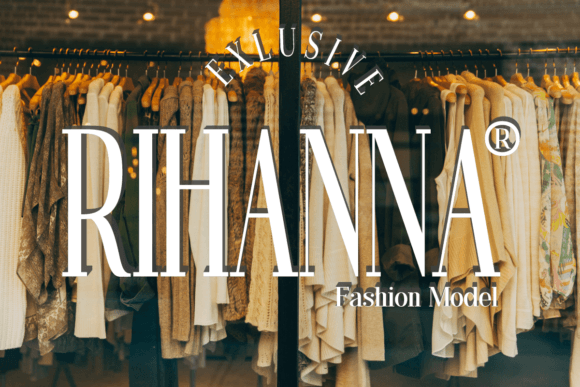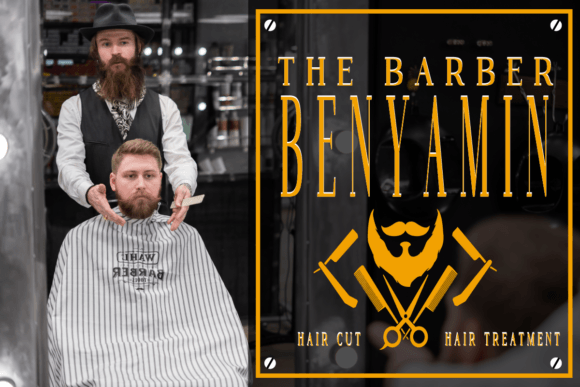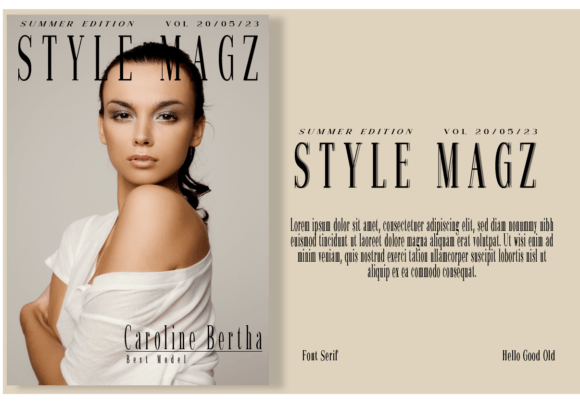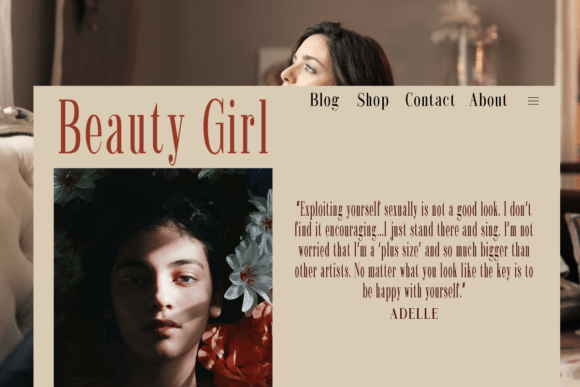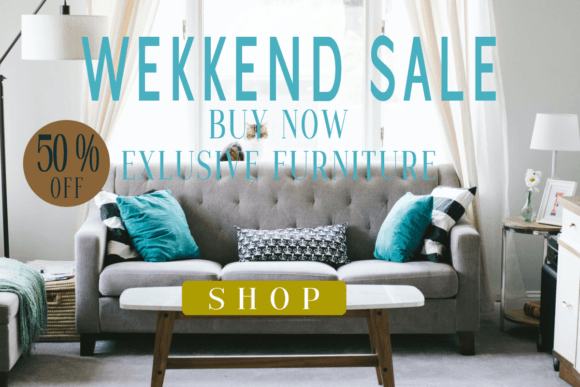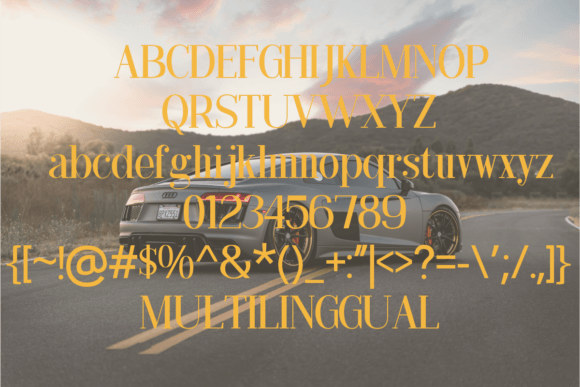
Introduction to Hello Good Old Font
As a designer, there’s nothing quite like the thrill of a new creative project. You’re brainstorming ideas, sketching out concepts, and envisioning the perfect visual identity for your latest endeavor. And then, it happens – you stumble upon the perfect font, one that elevates your design from good to great. For many, that font is the Hello Good Old Font, a modern family serif that brings a touch of sophistication and elegance to any project.
With its thin lettered design and authentic feel, the Hello Good Old Font is the perfect choice for designers looking to add a luxury spark to their work. Whether you’re working on a free download or a high-quality design resource, this font is sure to impress. Its versatility makes it a valuable addition to any designer’s toolkit, and its transparent background allows for seamless integration into any design project.
Key Features of Hello Good Old Font
- High-quality design resource with a unique, vintage aesthetic
- Perfect for creative projects, from branding to typography-based art
Honest Review: Hello Good Old Font
I recently came across the Hello Good Old Font, and I must say it’s a great addition to any designer’s toolkit. As a free download, it’s a fantastic resource for those working on creative projects where a high-quality font is essential.
- ✨ Transparency: The font’s transparent background is a major plus, allowing for seamless integration with images and graphics.
- ✨ Versatility: The Hello Good Old Font is incredibly versatile and can be used for a wide range of applications, from headers to body text.
- ✨ Quality: The font’s high quality is evident in its crisp lines and well-balanced letterforms.
However, I do have a few minor quibbles. The font’s limited character set is a drawback, ⚠️ making it less suitable for projects that require extensive typography.
Overall, I’m impressed with the Hello Good Old Font. It’s a solid design resource that’s well worth downloading. While it may not be perfect, its strengths far outweigh its limitations.
Hello Good Old Font
Hello Good Old Font is a versatile design resource that can be used in a variety of creative projects, such as logos, business cards, and social media graphics. Its high quality and transparent background make it a great choice for designers looking for a free download.
Getting the Most Out of Hello Good Old Font
To get the most out of Hello Good Old Font, be sure to experiment with different font sizes, colors, and layering options. You can also use the font in combination with other design elements to create unique and eye-catching designs.
Alternatives to Hello Good Old Font
Open Sans is a modern sans-serif font ideal for digital designs, including websites and mobile applications. It’s available for free download and is widely used in various creative projects. When to use: Open Sans is perfect for modern and minimalistic designs.
Open Sans is more versatile than Hello Good Old Font, offering a wider range of styles and weights. However, it lacks the nostalgic feel of Hello Good Old Font, making it less suitable for retro-themed projects.
Montserrat is a geometric sans-serif font that’s perfect for creating high-quality designs with a urban feel. It’s available for free download and offers a transparent background, making it ideal for logos and branding. When to use: Montserrat is great for modern and edgy designs.
Montserrat is more condensed than Hello Good Old Font, making it perfect for small designs and logos. However, it lacks the elegance and sophistication of Hello Good Old Font, making it less suitable for formal projects.